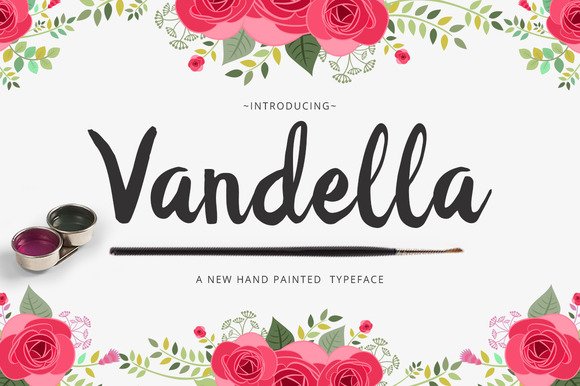
Vandella Script
Vandella typeface is a hand-inked, ‘semi-script’ font with tight kerning, and a fun, imperfect baseline. It’s nice and bold, plus a little gritty – Perfect for creating organic, fluid typography on products, branding, invitations, fliers, posters, and wedding invitation, and more. this font multiple language support, the choice of useful ligatures and more.